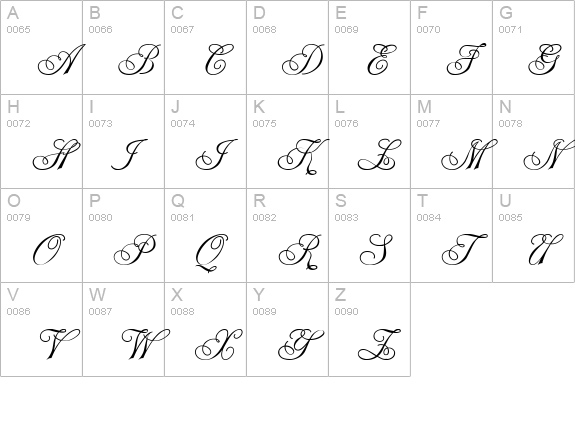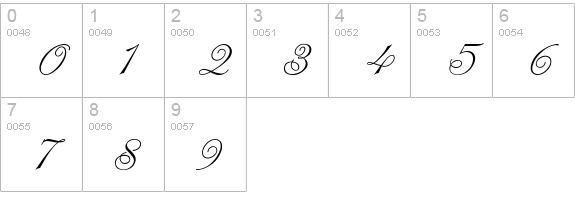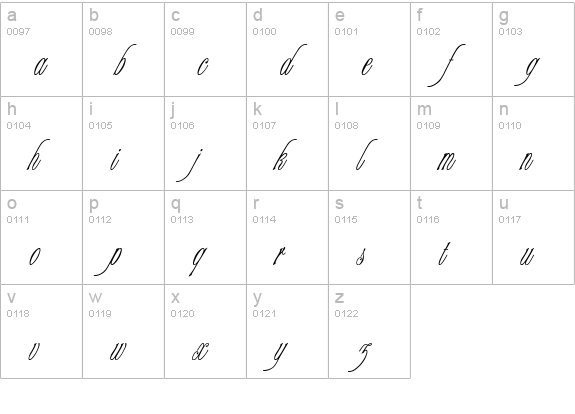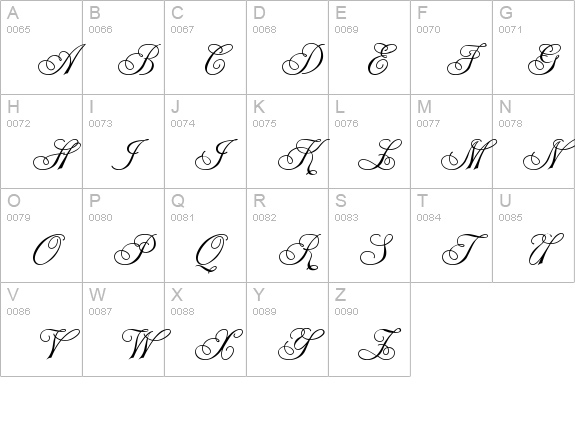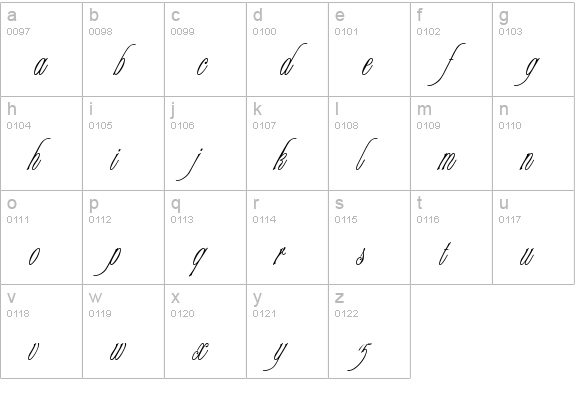
Introducing Champagne Cyrillic font, a sophisticated and elegant typeface perfect for adding a touch of luxury to your designs. This exquisite font features beautiful Cyrillic characters with a timeless charm that is sure to make your projects stand out. The Champagne Cyrillic font exudes class and refinement, making it ideal for use in branding, invitations, packaging, and more. The best part? Champagne Cyrillic font is completely free to download at FontsMarket.com, allowing you to elevate your designs without breaking the bank. Whether you're creating a high-end logo or designing a chic wedding invitation, Champagne Cyrillic font is the perfect choice for adding a touch of glamour to your work. Download this stunning font today and bring a touch of luxury to your designs.